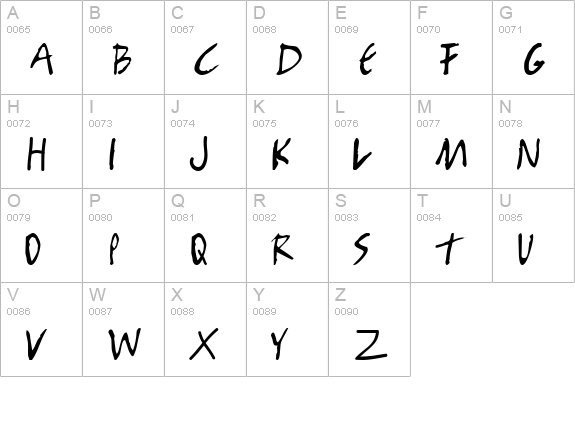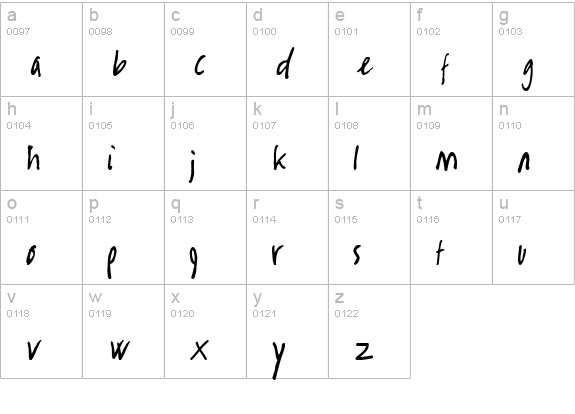
Rambo Killer Font Details
Introducing Rambo Killer, a bold and powerful font that packs a punch with its edgy and fierce design. This font is not for the faint of heart, as it commands attention and demands to be noticed. With its sharp angles and strong strokes, Rambo Killer exudes strength and confidence. But what sets this font apart from the rest is that it is not only visually striking, but also freely available to download. Yes, you read that right – Rambo Killer is completely free to use for personal and commercial projects. No need to break the bank to add a touch of boldness to your designs. Whether you're working on a logo, poster, or any other creative project, Rambo Killer will make a lasting impression. Its versatility allows it to be used in a variety of contexts, from action-packed movie titles to rebellious branding. So, where can you get your hands on this incredible font? Look no further than FontsMarket.com, the go-to destination for all your font needs. Simply visit the website and download Rambo Killer for free, instantly elevating your designs to the next level. Embrace the power and intensity of Rambo Killer font and let your creativity run wild. Unleash the warrior within and make your designs stand out from the crowd. Download this exceptional font for free today at FontsMarket.com and witness the impact it can have on your projects.